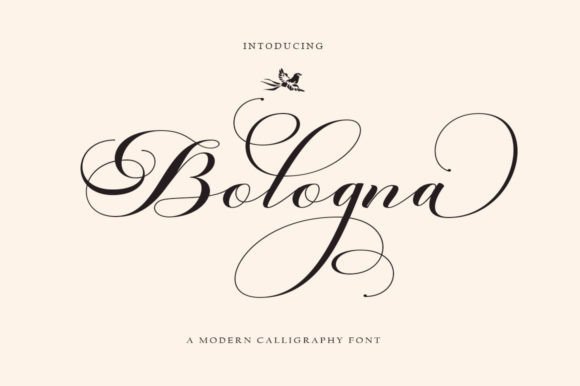
Introducing Bologna Font, the perfect addition to your collection of script fonts! Created by hrzstudio92, Bologna is the font of choice for anyone looking to elevate their design game. If you're in the market for a new font, look no further than Bologna - the Best Font for Magazine Ads.
This stylish script calligraphy font exudes class and elegance, making it the ideal choice for your most important projects. Whether you're designing a logo, creating a stunning website, or putting together a captivating magazine ad, Bologna is the font that will make your work stand out.
With its timeless style and unique features, Bologna is sure to become a favorite in your font library. And with PUA encoding, accessing all of the glyphs and ligatures is a breeze.